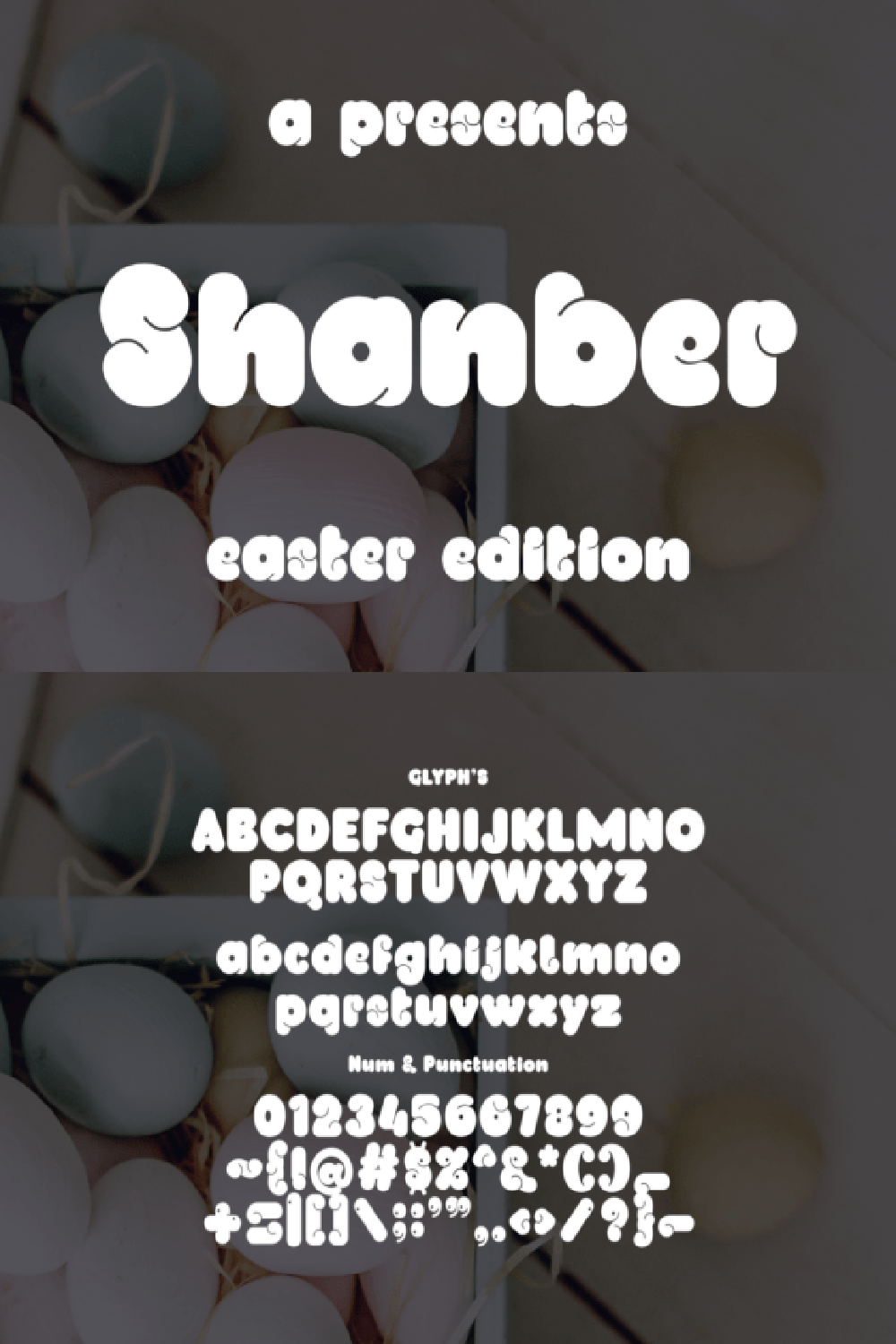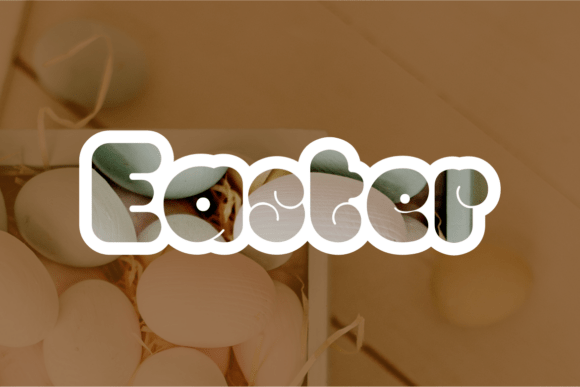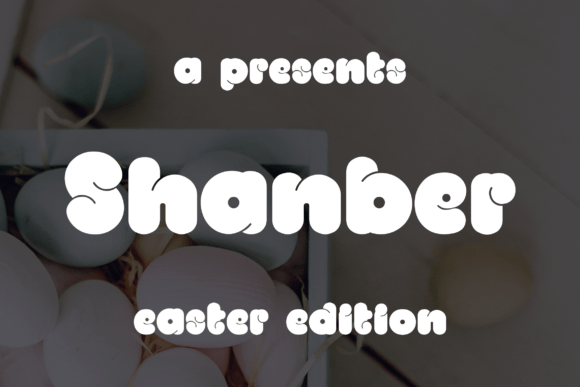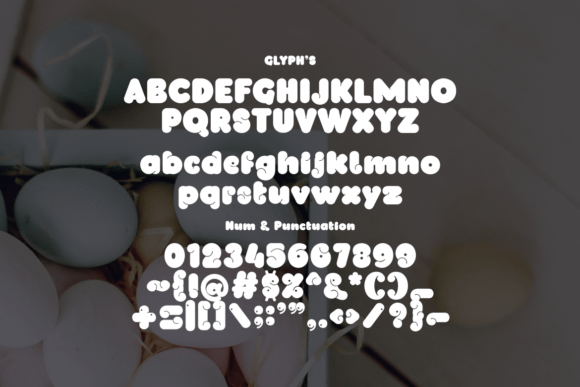
Shanber Font: Cute & Playful Display Font for Festive Designs
About the Shanber Font
Add a touch of class to your work with the Shanber Font, a truly exceptional typeface. Introducing Shanber, a whimsical twist of playfulness and creativity. This font encapsulates the innocent charm of youth with a childlike display that is specifically designed to be rounded and fun! It’s a bold, modern typeface that will add a dash of joy to any project. Perfect for holiday themes or festive celebrations, it has a cheerful flair that conveys a sense of joy and happiness. Ultimately, it’s a provocative blend of the cute and the modern, making any creation effortlessly stand out with its light-hearted touch. Delve into the playful versatility of Shanber-Font.